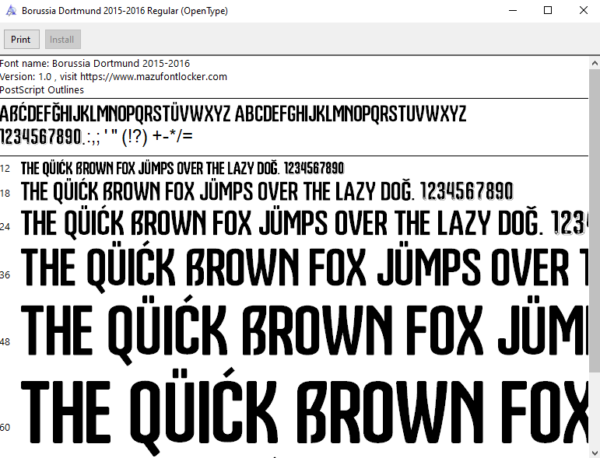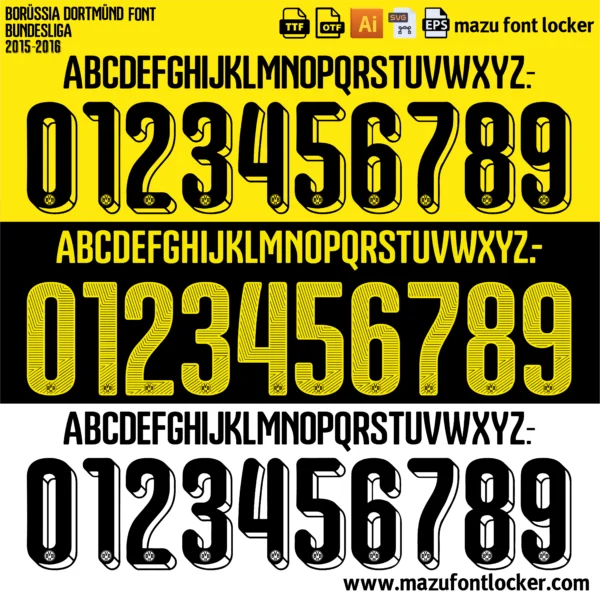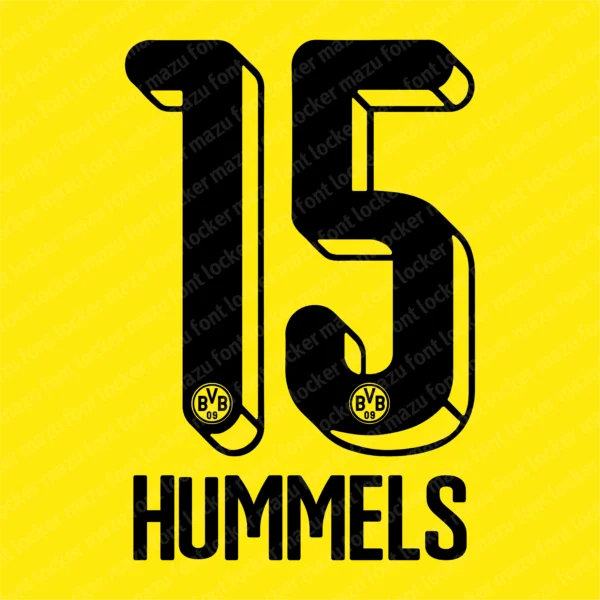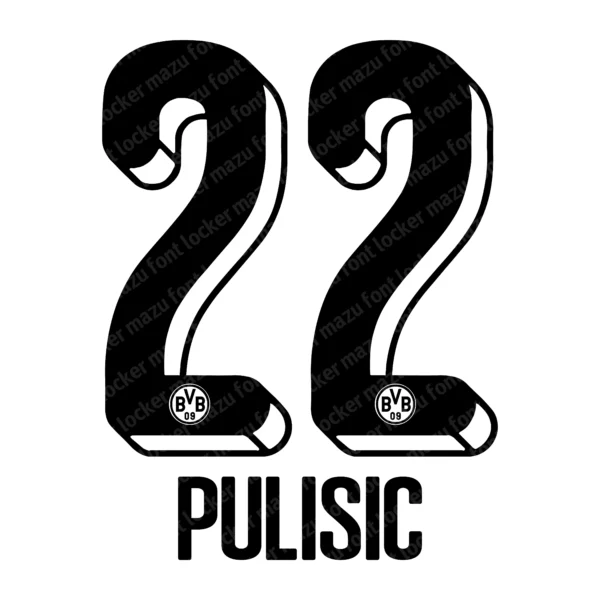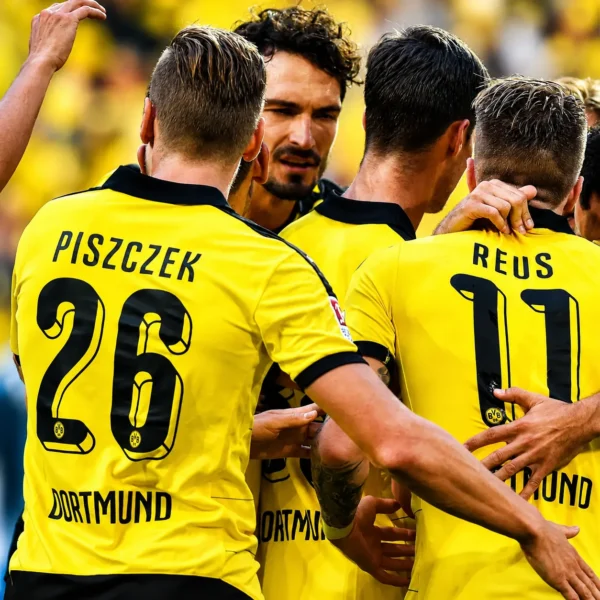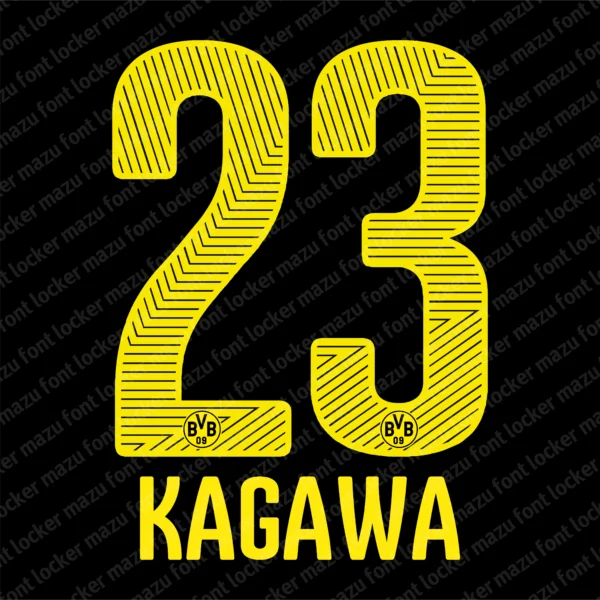
Borussia Dortmund 2015-2016 Font Vector – Epic Klopp Era Yellow Wall Masterpiece
This font captures the bold, fearless, electric, and ultra-premium lettering that perfectly reflects Borussia Dortmund’s iconic German heritage combined with the fierce, unstoppable, and magical spirit of Die Schwarzgelben — delivering unmatched intensity, raw passion, elite craftsmanship, and pure Yellow-Black fire for premium jersey mockups, epic football designs, spectacular sports visuals, standout fan creations, and professional branding projects.
Borussia Dortmund 2015-2016 Font Vector – Authentic Schwarzgelben Typeface
The Borussia Dortmund 2015-2016 Font Vector is a premium typeface that accurately recreates the official match lettering worn by Borussia Dortmund during the exciting 2015-2016 season. This high-quality vector font kit captures the bold, dynamic, and energetic typography that represents the club’s rich heritage, passionate intensity, and attacking spirit of Die Schwarzgelben.
Designed for professional designers and devoted Borussia Dortmund supporters, the Borussia Dortmund 2015-2016 Font Vector delivers perfect authenticity for creating realistic jersey mockups, fan merchandise, matchday posters, social media graphics, and German football content. It pairs beautifully with the iconic yellow and black Borussia Dortmund kit, one of the most recognizable club identities in the Bundesliga and European football.
Why Choose Borussia Dortmund 2015-2016 Font Vector
This font stands out because of its sharp vector precision and strong club identity. Every letter and number is crafted to match the exact style used on the players’ shirts during Borussia Dortmund’s memorable 2015-2016 campaign. Whether you are creating realistic kit templates or exciting BVB-themed content, the Borussia Dortmund 2015-2016 Font Vector gives your designs that authentic Signal Iduna Park atmosphere.
The letterforms in the Borussia Dortmund 2015-2016 Font Vector are bold, powerful, and highly readable. The strokes feature strong geometric construction combined with athletic styling, creating a dynamic appearance that stands out on jerseys while preserving Borussia Dortmund’s legendary football heritage and passionate Yellow Wall energy.
The numerals feature robust curves and clean, sharp edges, delivering a confident and premium appearance. This vector design ensures flawless scalability and excellent legibility across both print and digital applications.
• Full uppercase A–Z and numbers 0–9 in authentic Borussia Dortmund 2015-2016 style
• Includes the exact crest glyph placement used beneath player numbers